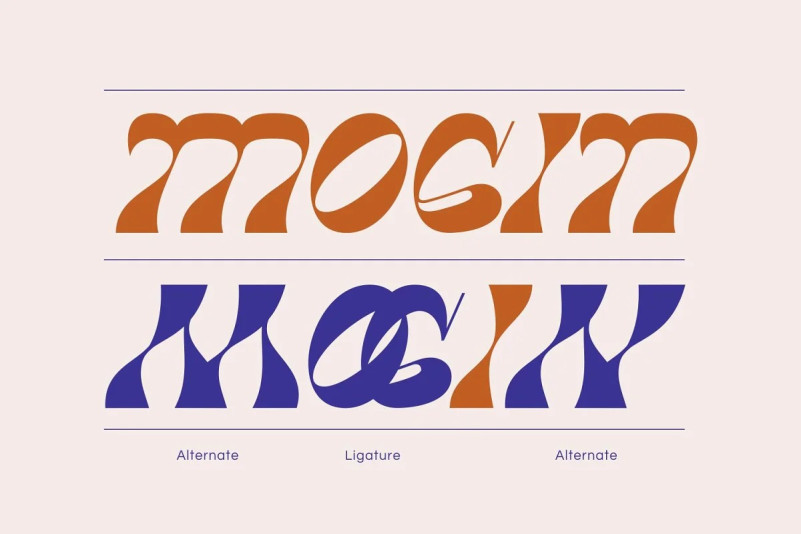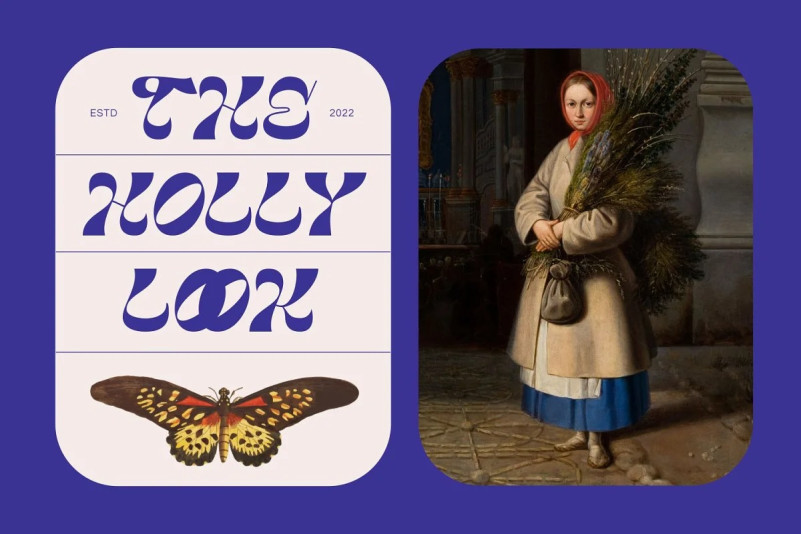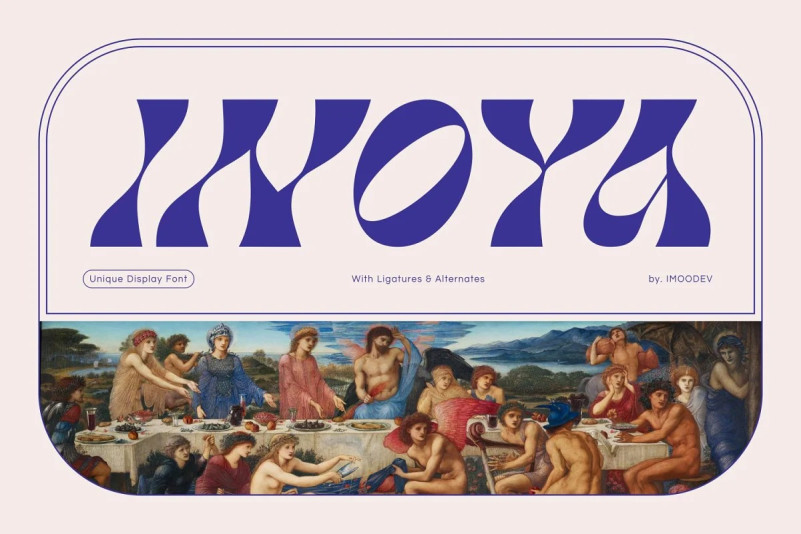
Inoya – Unique Typeface
Inoya is a modern classic font with visual elegance, smooth curves, and beautiful ligatures clear, making your work look true and attractive.
A versatile font that works in both large and small sizes. This font is suitable for a wide variety of projects such as logos, invitations, branding, magazine, photography, card, product packaging, product mockup, mugs, quotes, posters, labels, signatures, editorials, art deco, and much more.